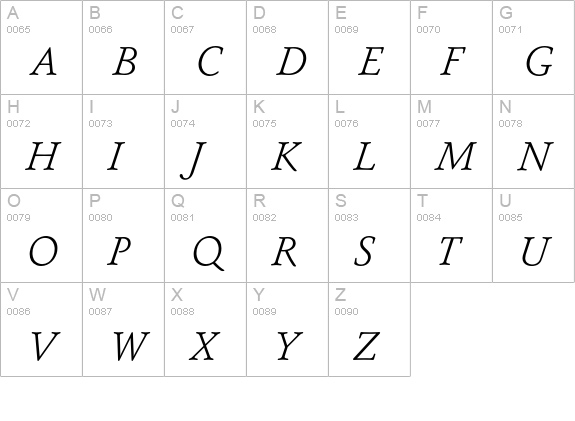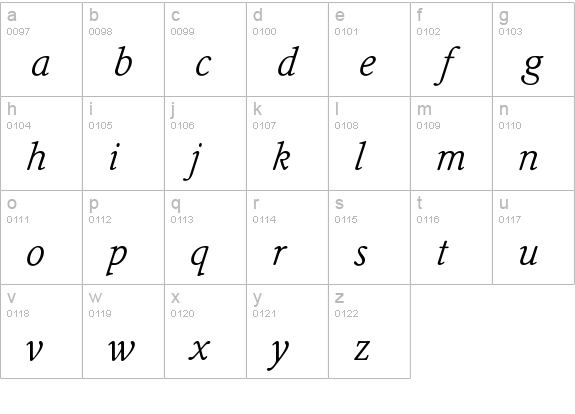
Seneca Light Italic Font Details
Seneca Light Italic is a refined, elegant, italic variant in the Seneca typeface family \xE2\x80\x94 well suited to elegant body text, refined sub-headings, and luxury branding.
Seneca Light Italic is a captivating and elegant font that adds a touch of sophistication to any design project. With its delicate and flowing letterforms, this font exudes a sense of grace and refinement. The slender and slightly slanted italic style gives it a unique and modern twist, making it perfect for both formal and informal settings. The graceful curves and subtle variations in line thickness create a harmonious balance that is pleasing to the eye. Whether used for headings, body text, or even logos, Seneca Light Italic effortlessly commands attention and leaves a lasting impression. What sets Seneca Light Italic apart is not just its stunning aesthetics, but also its accessibility. This font is freely available to download at FontsMarket.com, making it easily accessible to designers, creatives, and typography enthusiasts alike. This means that you can incorporate the captivating beauty of Seneca Light Italic into your projects without any financial barriers. Featuring a comprehensive character set, Seneca Light Italic offers support for multiple languages, allowing you to communicate your message effectively and effortlessly across different cultures and regions. Its versatility and adaptability make it a reliable choice for a wide range of design applications. So, whether you are working on a branding project, creating a visually stunning website, or designing captivating print materials, Seneca Light Italic is a font that will elevate your work to new heights. Its free availability at FontsMarket.com ensures that you can easily access and utilize this font to bring your creative visions to life. Experience the beauty and versatility of Seneca Light Italic and let your designs shine with elegance and sophistication.